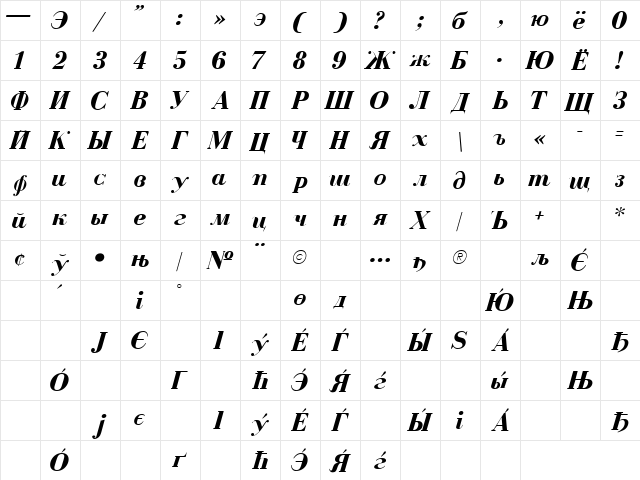
Dearborn Bold-Italic
Design Context for Dearborn Typeface
Dearborn offers clean, dependable letterforms without strong stylistic allegiance, making it a practical choice for designers who need flexibility. The slanted form adds forward momentum and visual energy. Its bold stroke weight gives it real presence on the page.